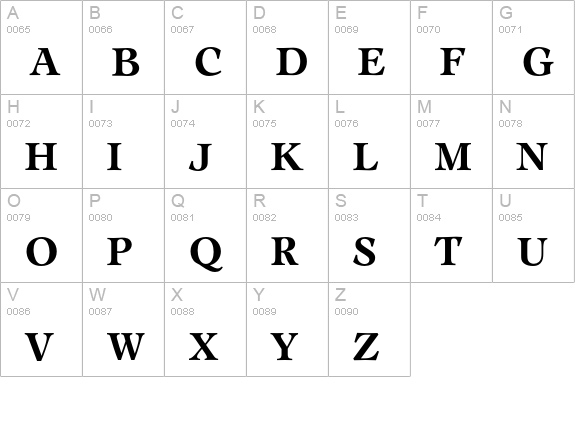
LeamingtonEF-Bold Font Details
LeamingtonEF-Bold is a strong, high-contrast variant in the LeamingtonEF typeface family \xE2\x80\x94 well suited to headlines, attention-grabbing titles, and strong calls-to-action.
LeamingtonEF-Bold is a bold and captivating font that exudes confidence and strength. Its robust and striking letterforms make a bold statement, perfect for headlines, titles, and any design that demands attention. The thick strokes and sharp edges give this font a modern and contemporary feel, making it an ideal choice for a wide range of projects. What sets LeamingtonEF-Bold apart is that it is not just a remarkable font, but it is also free! Yes, you read that right - this incredible font is available to download at no cost from FontsMarket.com. This means that you can add a touch of boldness and elegance to your designs without breaking the bank. Whether you're a graphic designer working on a client project, a student working on a presentation, or a business owner looking to enhance your branding, LeamingtonEF-Bold is here to elevate your work. Its versatility and strong presence will make your designs stand out from the crowd, leaving a lasting impression on your audience. Not only does LeamingtonEF-Bold offer eye-catching aesthetics, but it also ensures legibility and readability. The carefully crafted letterforms ensure that your message is conveyed effortlessly, even at smaller sizes. This makes it a reliable choice for both print and digital applications. So why wait? Download LeamingtonEF-Bold today and unleash its power in your designs. With its free availability on FontsMarket.com, you have the opportunity to access a remarkable font that will take your projects to new heights. Don't miss out on this incredible opportunity to elevate your design game and captivate your audience with LeamingtonEF-Bold.